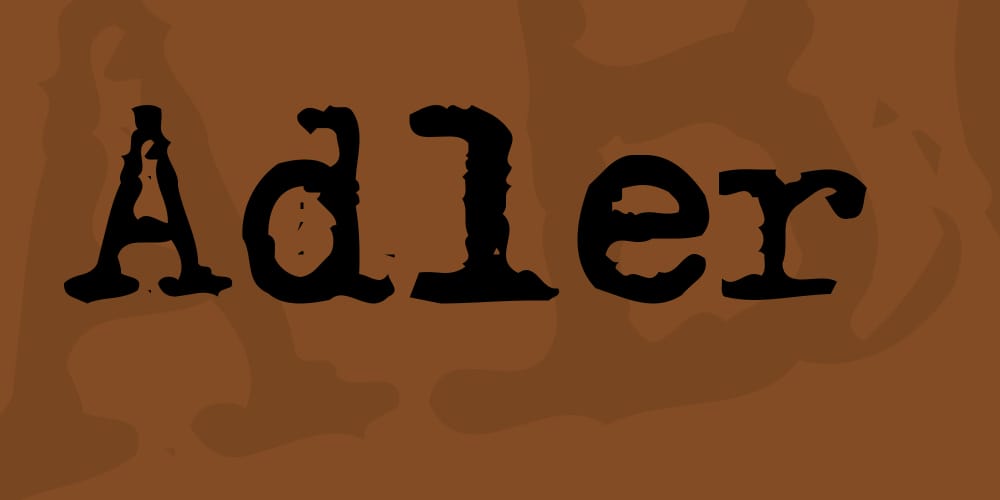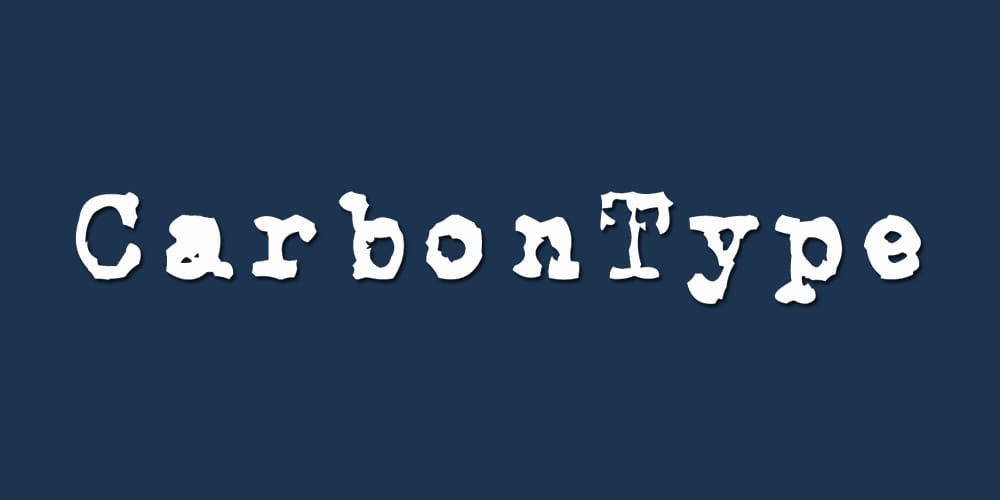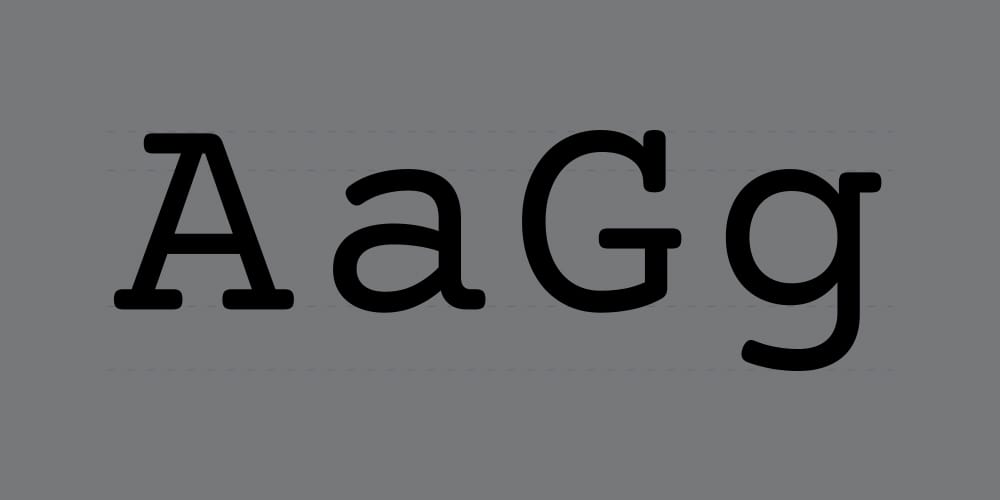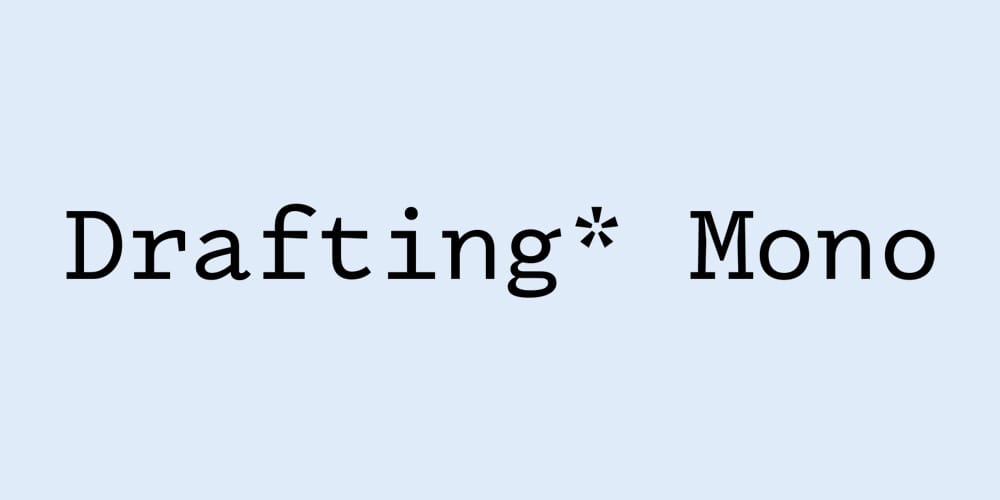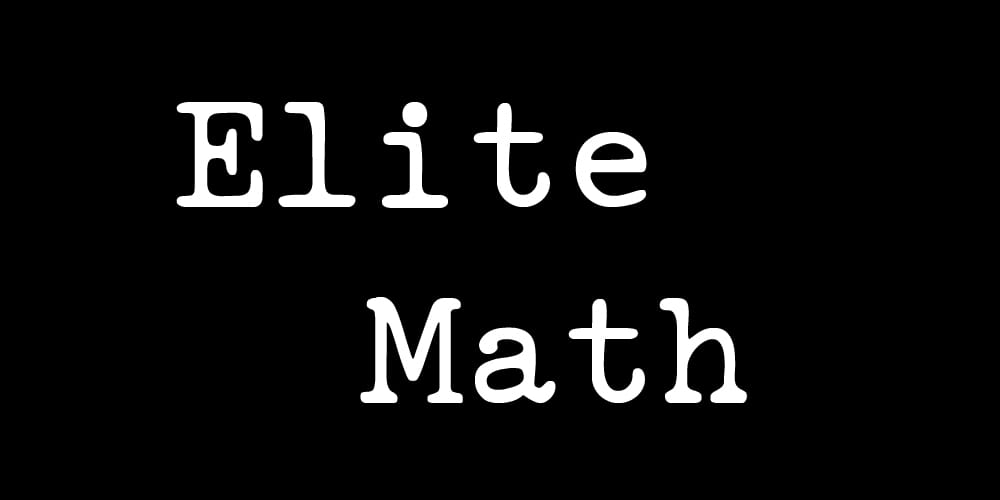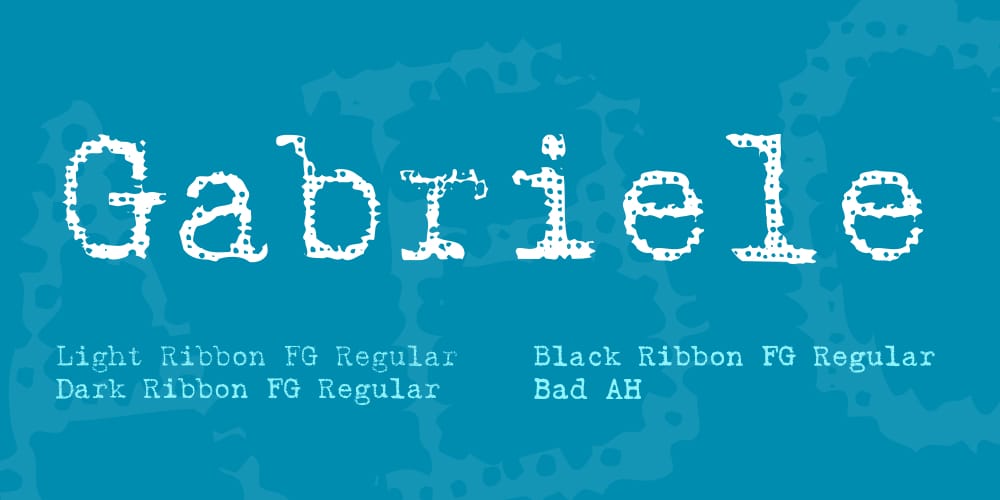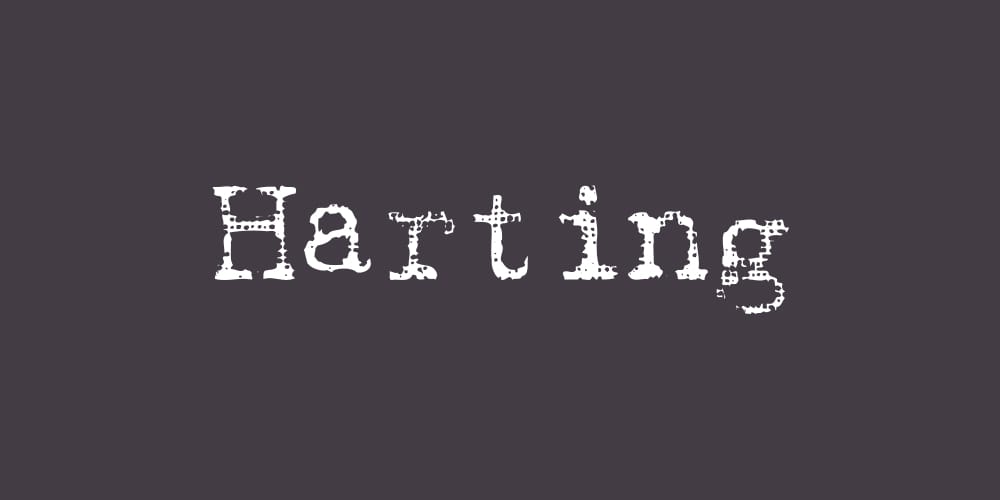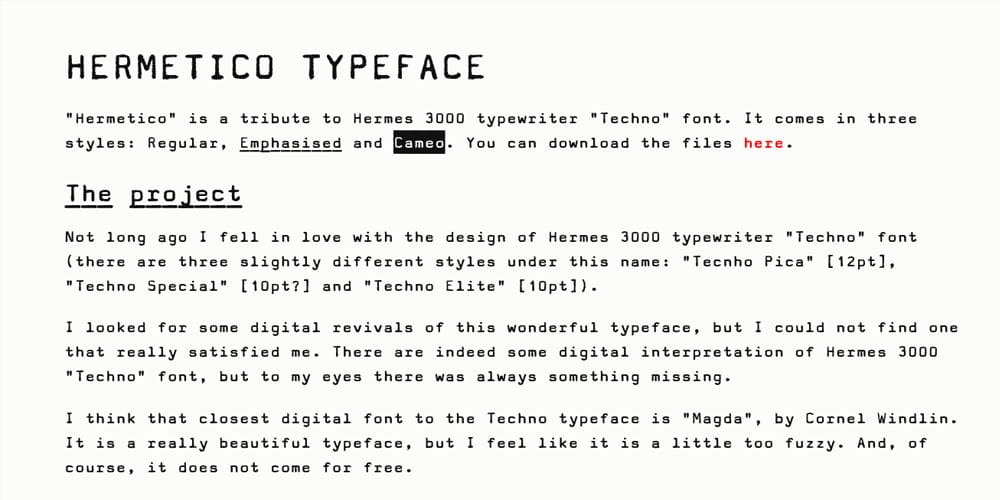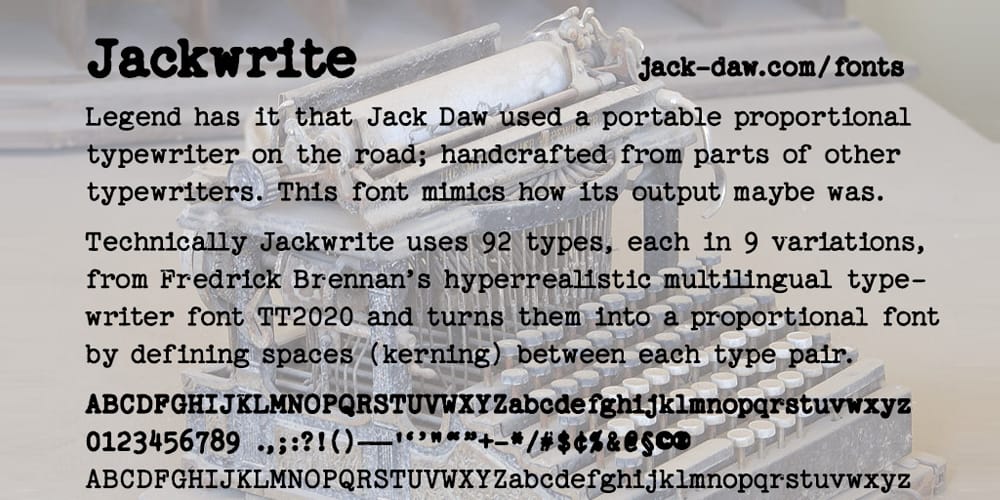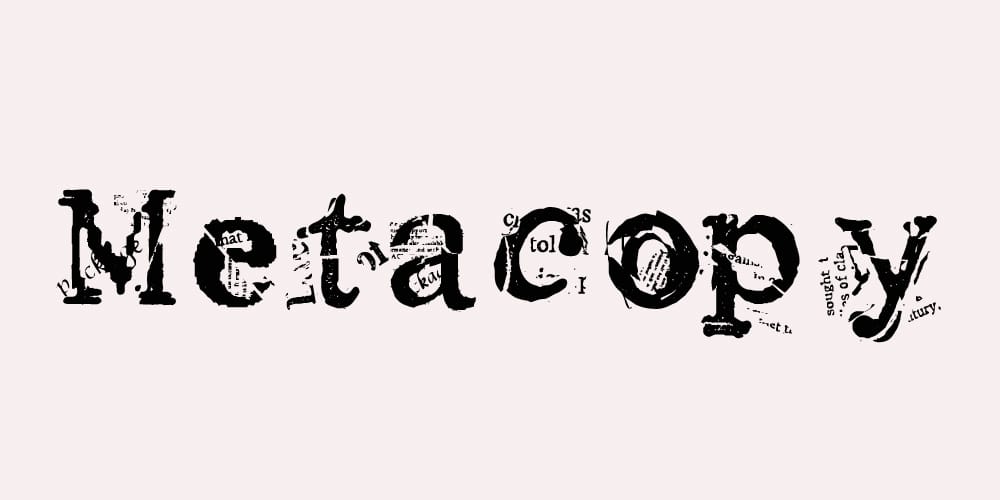
The Ultimate Collection of Free Typewriter Fonts
If you’re craving that classic typewriter charm for your next project, you’re in luck! Whether you’re designing a vintage-themed flyer, adding a touch of nostalgia to a personal letter, or simply exploring new fonts, typewriter fonts deliver a unique character that’s hard to beat. There’s just something about the slightly uneven, mechanical feel of these fonts that brings text to life in a way that’s both retro and authentic.
These free typewriter fonts come in handy for a range of creative ideas. Want to capture the essence of old-school journalism, detective novels, or WWII-era telegrams? Or maybe you’re looking for a quirky, DIY vibe for a zine or blog? The right typewriter font can give your work that distinctive edge without the expense of specialty typography.
What Font Do Typewriters Use?
The original typewriters, especially vintage ones, usually featured monospaced fonts where each character occupied the same width. This classic look is captured in fonts like Courier and American Typewriter, but with today’s digital tools, the options are nearly endless. While some modern fonts mimic this exact spacing, others take creative liberties, adding a touch of elegance, roughness, or even a worn texture for that extra bit of personality.
This collection is hand-picked to include the very best typewriter-inspired fonts that are completely free. So, if you’re ready to elevate your designs with an authentic, old-school feel, dive into our list of free typewriter fonts that capture the mechanical beauty of yesteryear.
X Typewriter Monospaced Font
Special Elite Font
Harting – Typewriter Font
Harting Typewriter Font
Cutive Font
Radio Newsman Font
Cutive Mono
Lekton
TT2020 – Typewriter Font
TT2020
Jackwrite Font
Syne Mono
RM Typerighter Old Font
RM Typerighter old Font
Overpass Mono Font
Noir Lullaby Font
Special Elite Typewriter Font
Space Mono
CarbonType
Inconsolata
Gabriele Font
Hermetico Typeface
Source Code Pro
Royal Quiet Deluxe Font
Courier Prime Typewriter Font
Fira Mono
fira mono
Adler Font
Drafting Mono
Fira Code
Elite Math Font
Anonymous Pro Font
Veteran Typewriter Font
Spline Sans Mono
Metacopy Font
Sometype Mono Font
My Type of Font
My type of font
Xerography Font
JM Letter
Sears Tower
AFL Font Pespaye Nonmetric Font
Underwood Champion Font
F25 Executive Font
Mom’s Typewriter
Mom's Typewriter
Hammer Keys Font
Type Wrong
BPtypewrite Font
Another Typewriter
Kingthings Trypewriter
Uncle Typewriter
Benjamin Franklin Font